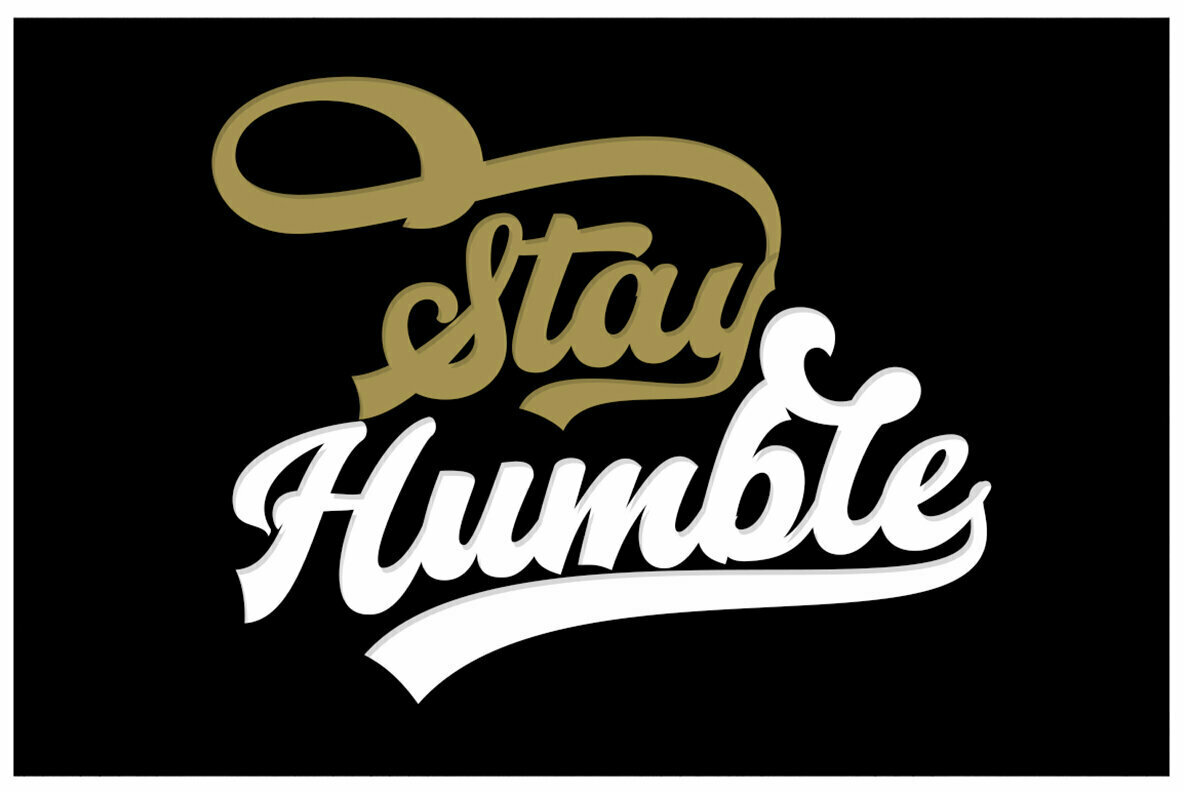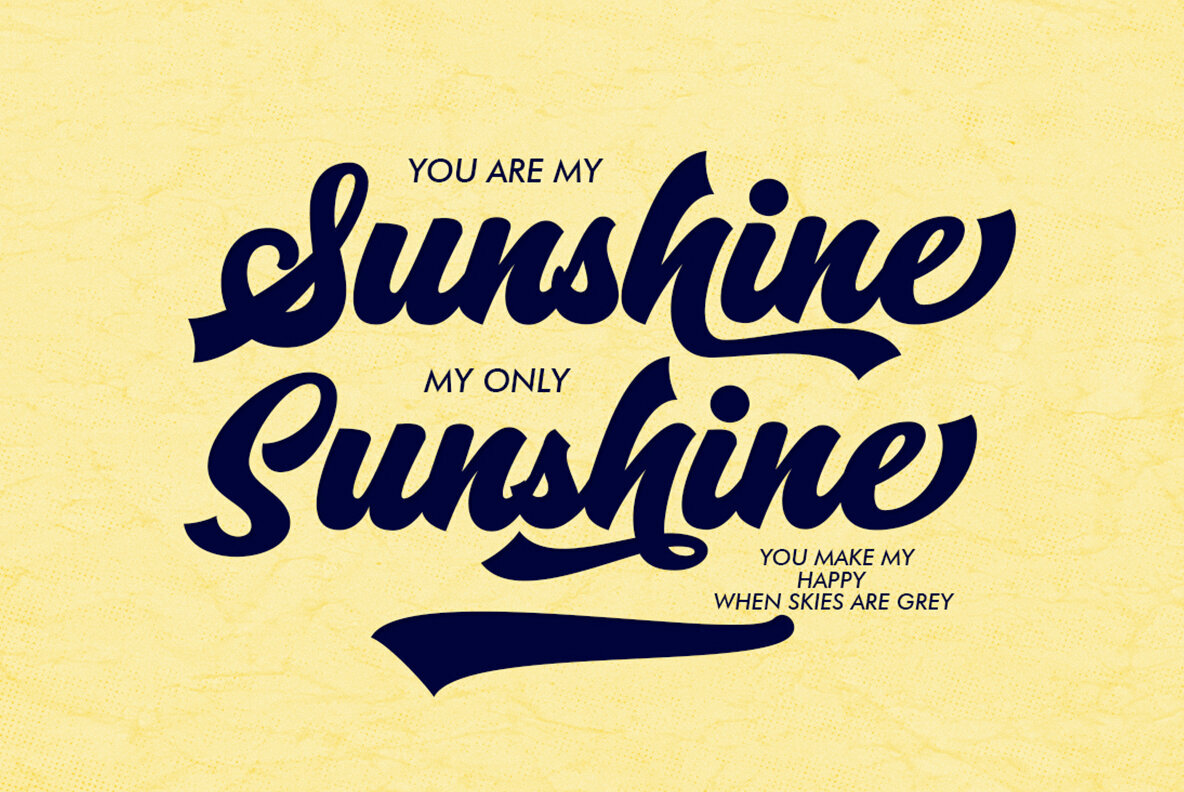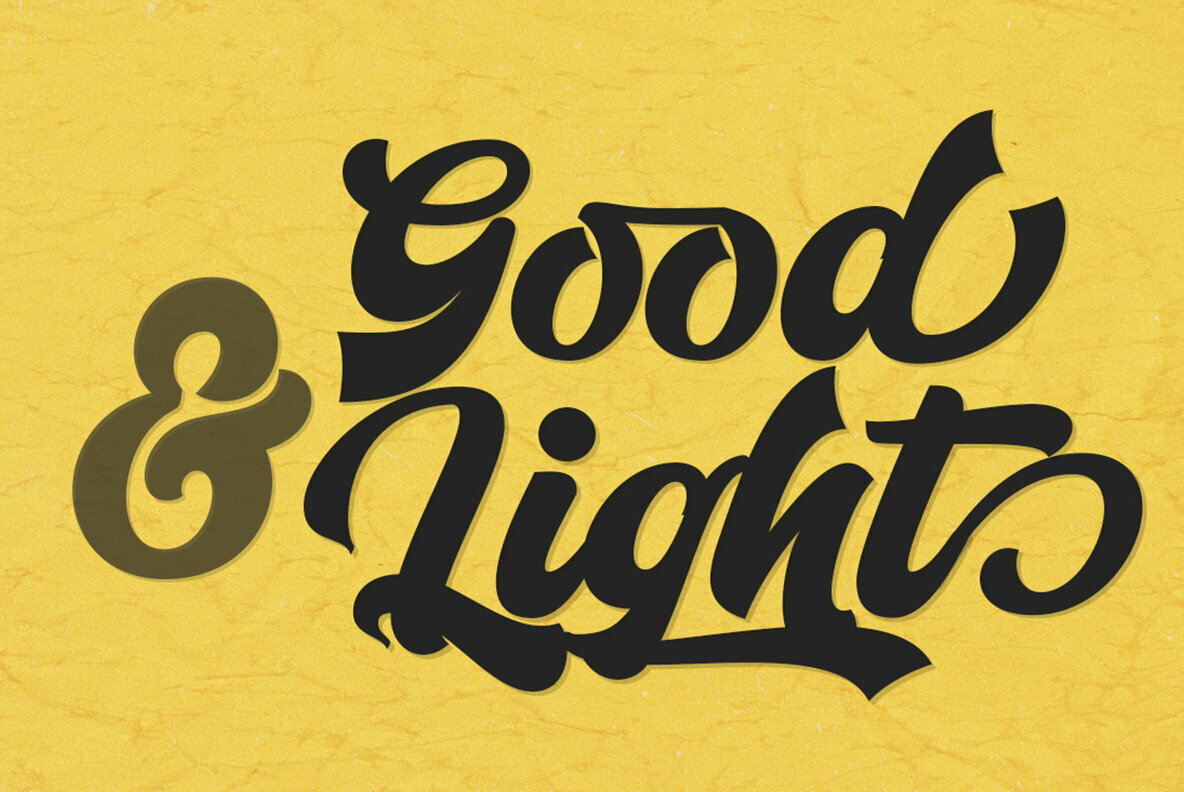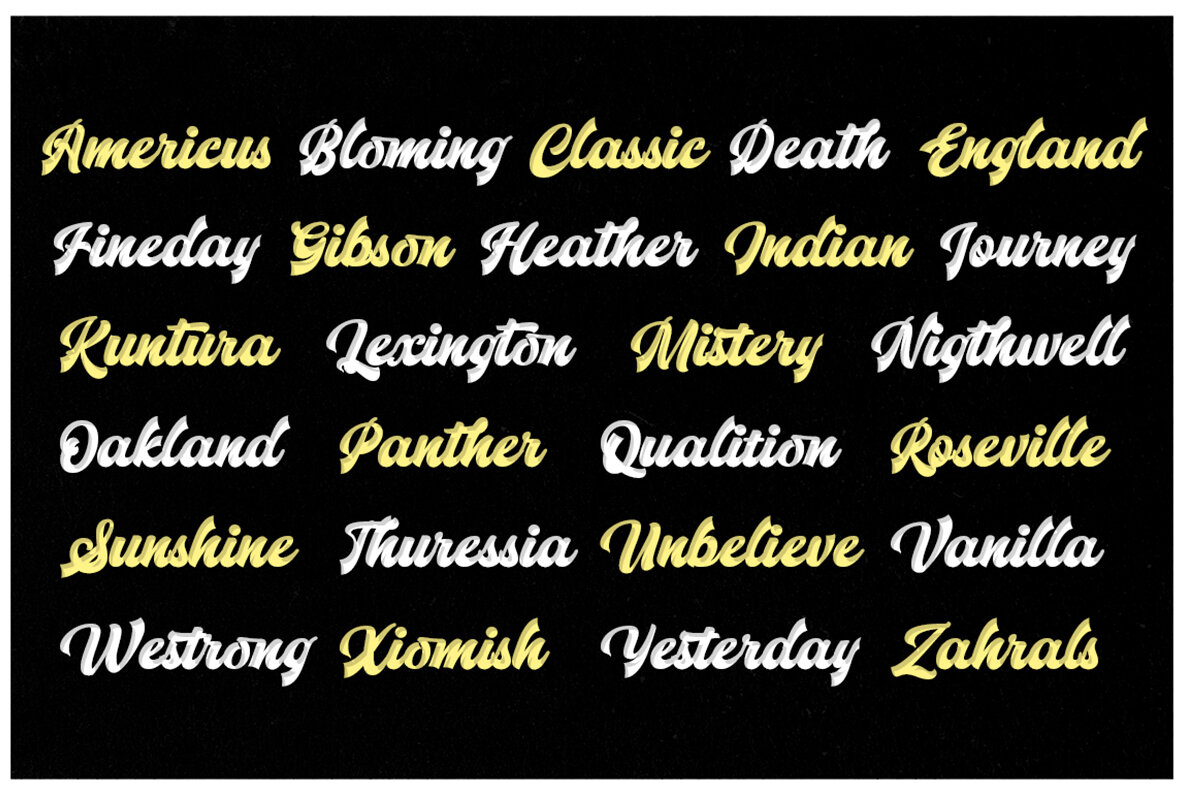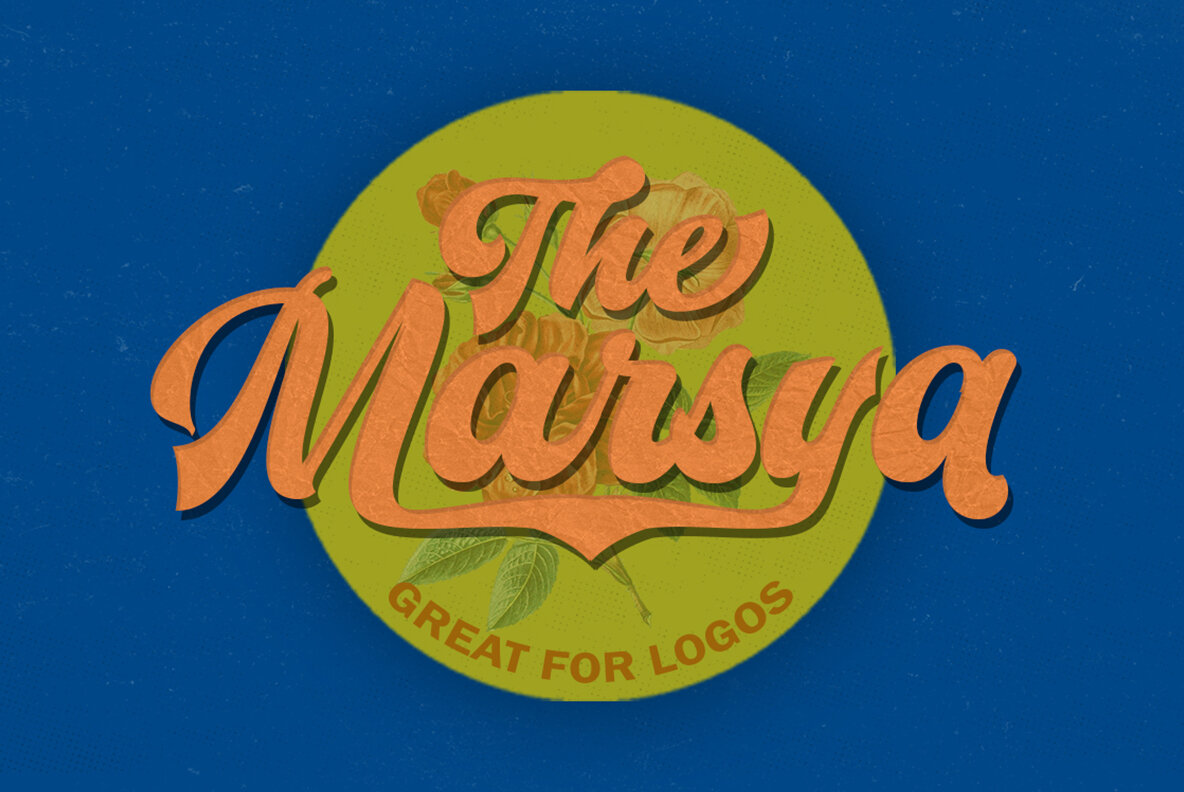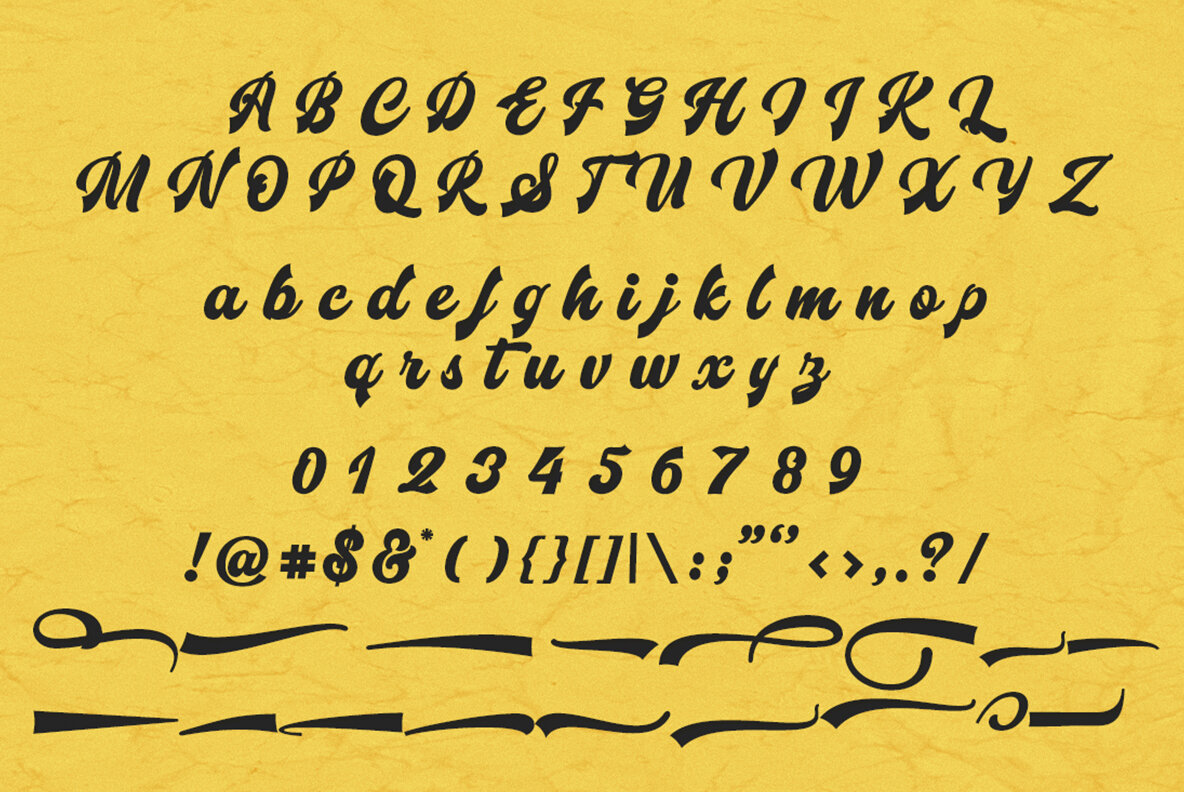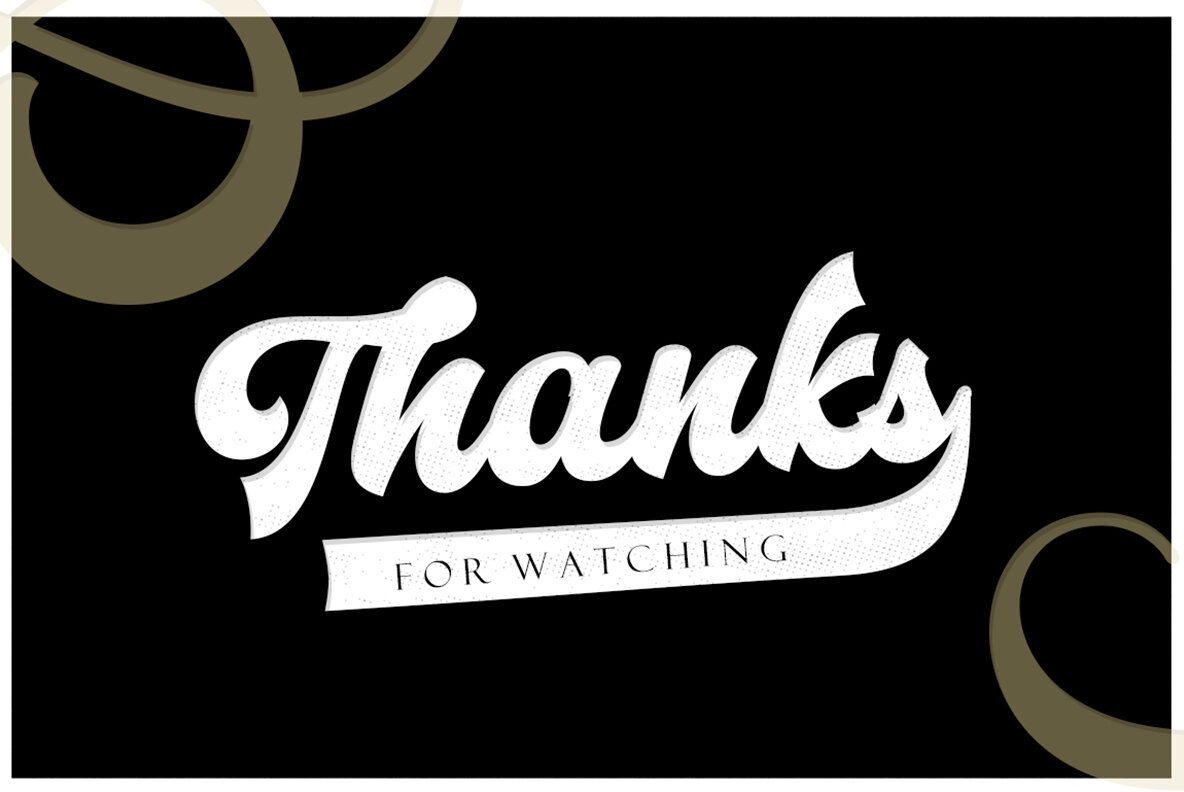
Mistery Font
Mistery, by Akmal Yusar, is a script font offering an artistic touch to your design projects. With its clear style, Mistery is particularly suitable for logos, invitations, product packaging, and printed quotes. It provides a creative flair for crafting unique headers and clothing designs, leveraging the illustrative qualities of its shapes to create striking art pieces. Mistery cleverly accommodates design needs with options for Adobe Illustrator, Adobe Indesign, CorelDraw, and Microsoft Word compatibility, ensuring a seamless experience for both Mac and Windows users. Enjoy the creative journey with Mistery, where every word becomes a canvas.Mistery: Handmade Script Font With Distinct Character